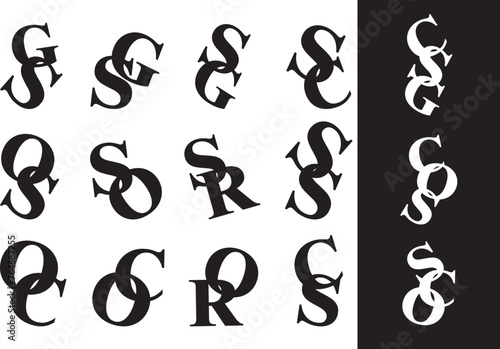
Hanging edges letters logo design typeface idea vector set. Two letters together composition logotype branding. Keep letter by letter emblem elements.